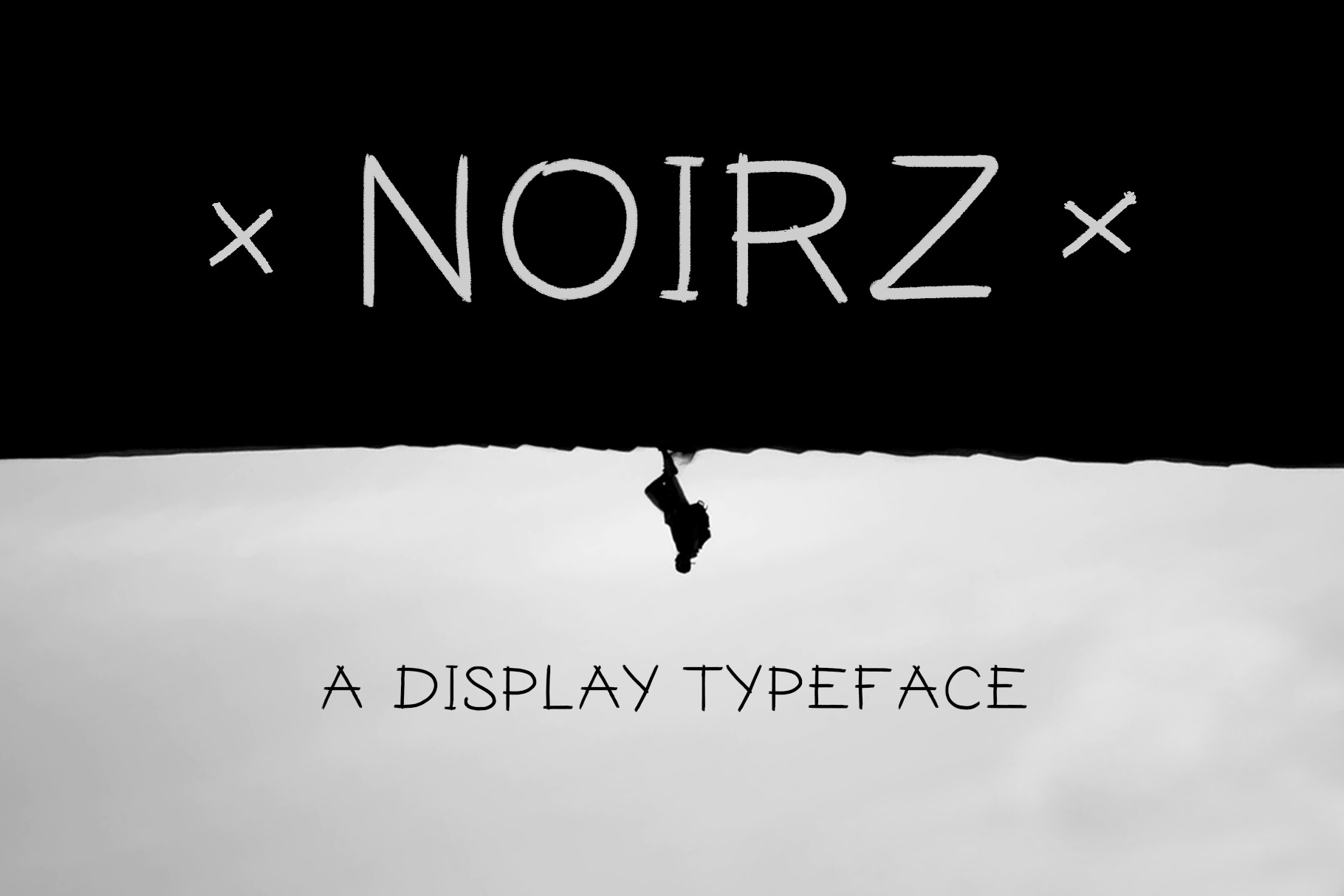
Noirz Font
Noirz is a horror display typeface. A handmade feel that will add character to any project. It is best used for headings, flyers, apparel design, greeting cards, packaging, album covers and more.